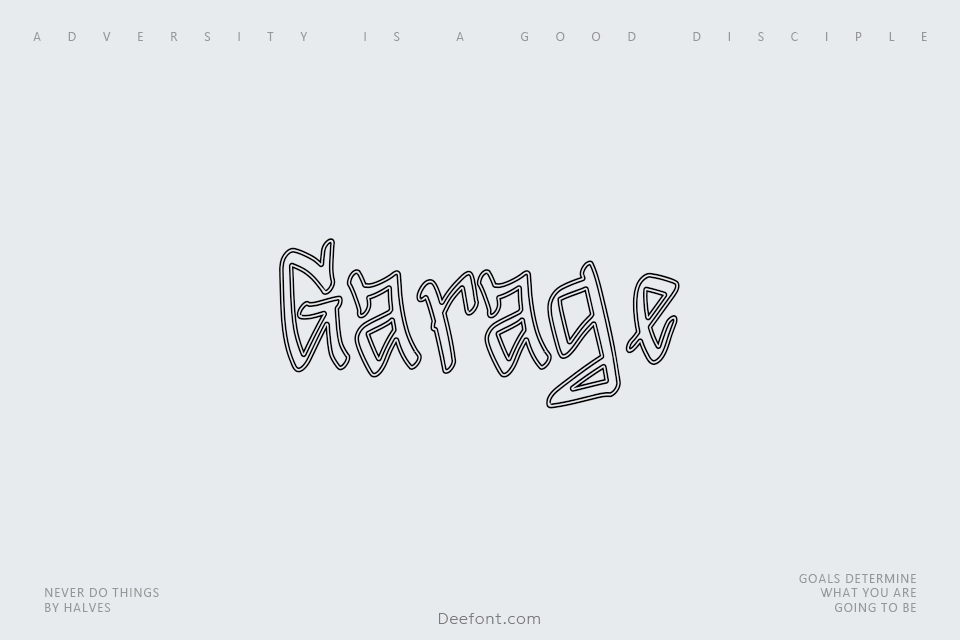
Garage Font
Garage is a modern script and graffiti font that combines outlined letterforms with bold, edgy character. Created by MJType, this semi-condensed typeface delivers playful versatility and eye-catching appeal, perfect for logos, album covers, streetwear branding, and urban-themed advertisements. With its rebellious attitude and artistic flair, Garage makes designs stand out from the crowd while maintaining excellent legibility across various applications.